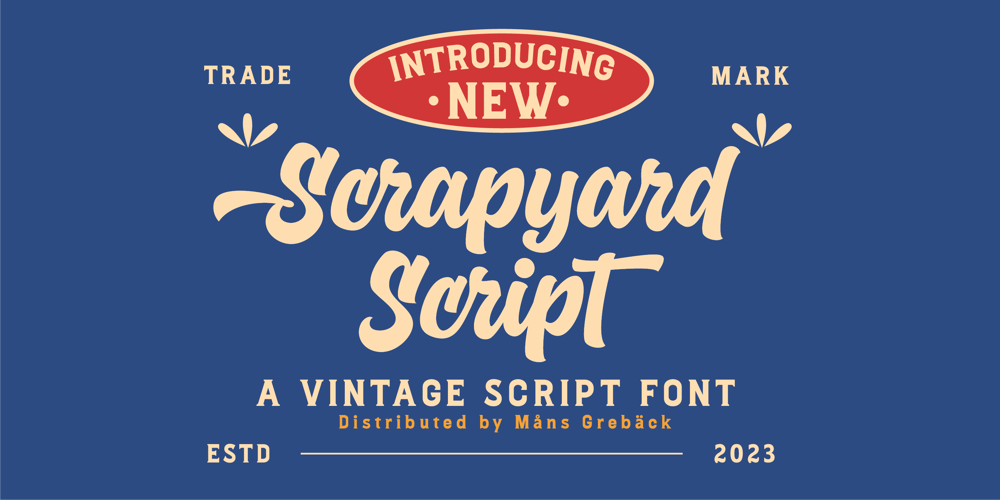
Scrapyard Script Font Family was designed by Måns Grebäck and published by Mans Greback. Scrapyard Script contains 4 styles and family package options. Scrapyard Script is a bold, heavy font with a cool and funky vibe that captures the essence of street style and urban culture.Ideal for streetwear branding, concert posters, funky album covers, and other projects that require a cool, contemporary vibe, Scrapyard Script is a display font that adds an energetic, dynamic touch to your designs. Its unique style makes it a great choice for projects that need to stand out and make an impact.Use multiple _ ¤ # to make swashes of different lengths. Example: Rockstar____(Download required.)The Scrapyard Script font family includes four high-quality styles to suit various design needs:Regular: A bold, paintbrush-inspired style with a youthful edgeItalic: Adds a touch of movement and expressiveness to the regular styleBold: An even bolder and heavier presence for more impactful designsBold Italic: Combines the assertiveness of bold with the energy of italicBuilt with advanced OpenType functionality, Scrapyard Script ensures top-notch quality and provides you with full control and customizability. It includes stylistic alternates, ligatures, and other features to make your designs truly unique.It has extensive lingual support, covering all Latin-based languages, from Northern Europe to South Africa, from America to South-East Asia.It contains all characters and symbols you’ll ever need, including all punctuation and numbers.